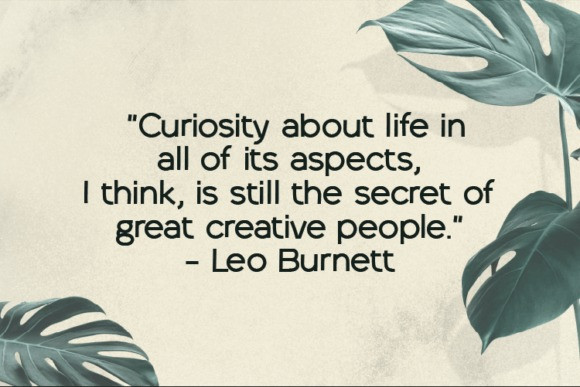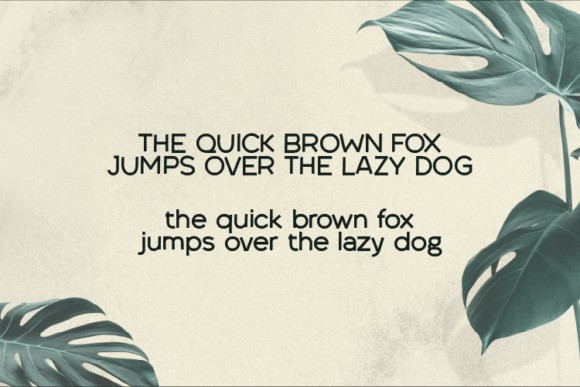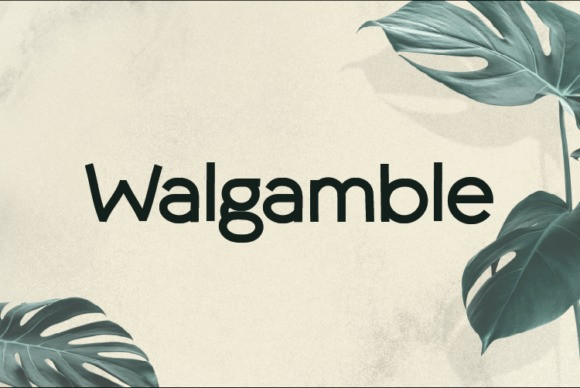
Walgamble Font
Walgamble Font is an interesting and unique sans serif font perfect for quotes, notes, T-shirts, and many more. Fall in love with its incredibly versatile style, and use it to create spectacular designs!